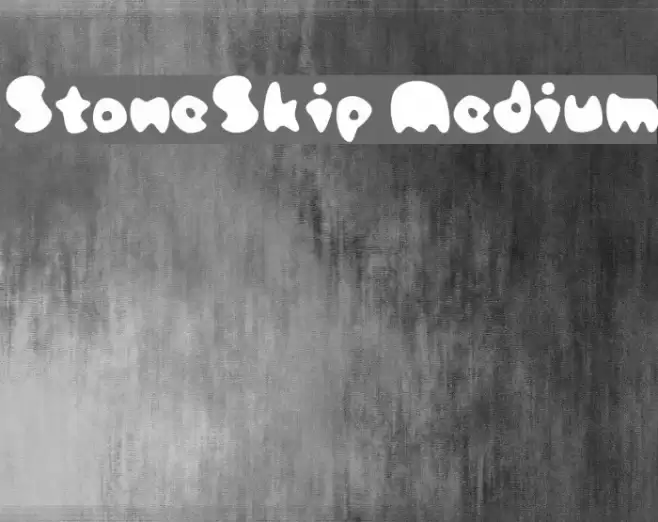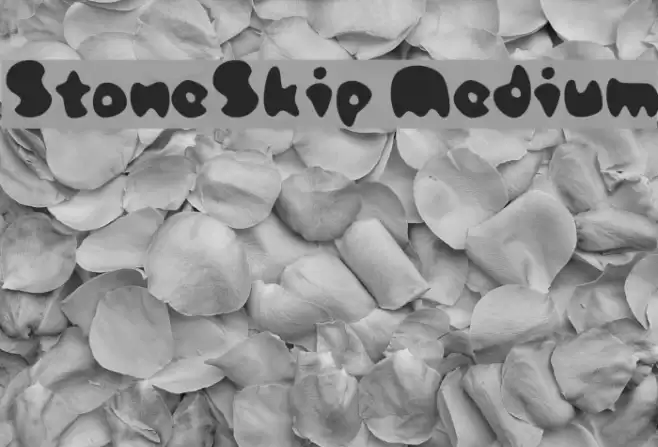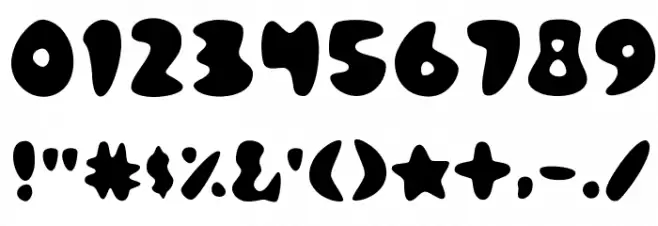
StoneSkip Medium Font
StoneSkip Medium Description
This playful and bold font features rounded, organic shapes that give it a whimsical and friendly appearance. The characters are thick and substantial, with a unique, almost hand-drawn quality that makes each letter stand out. The font's style is reminiscent of playful doodles or cartoonish designs, making it ideal for projects that require a fun and approachable aesthetic. The uppercase and lowercase letters maintain a consistent style, while the numbers and special characters complement the overall look with their quirky forms.
A playful, bold font with rounded, organic shapes and a whimsical style from Uncategorized fonts.
- Proposed Projects: Ideal for children's books, playful branding, party invitations, and creative posters.
- Overall Style: Playful, Whimsical
- Use Case: Logos, Posters, Children's Books